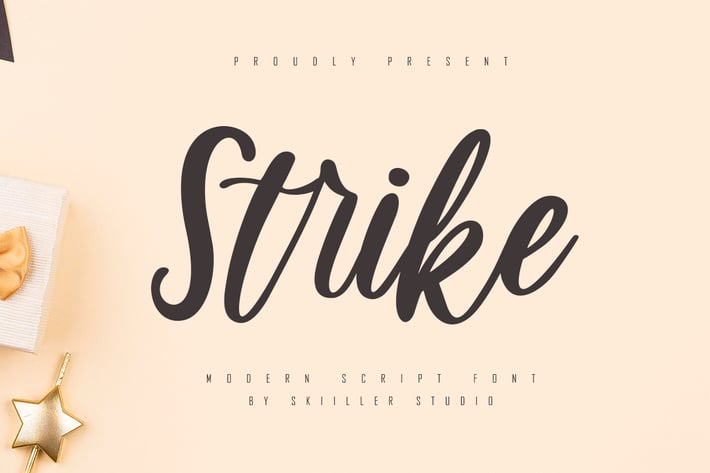
Strike - Modern Script Font
Strike Handwritten Script Font combined with a script so it looks elegant, suitable to support a variety of designs and your business
+ Ligature
+ Basic Latin Language Support (AÀÁÂÃÄÅCÇDÐEÈÉÊËIÌÍÎÏÑOØÒÓÔÕÖUÙÜÚÛWYÝŸÆß )